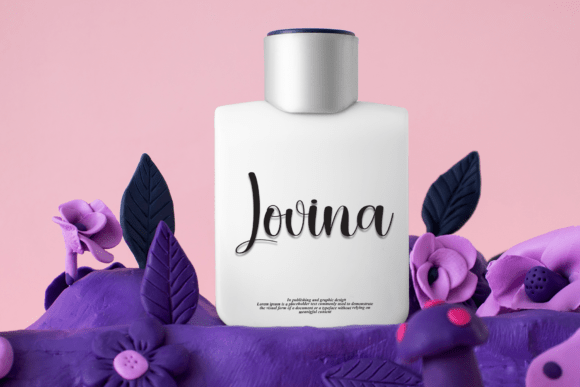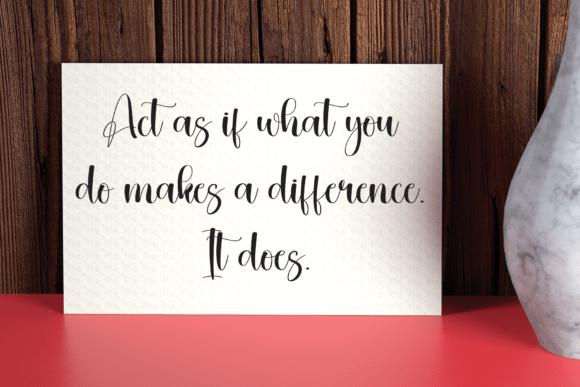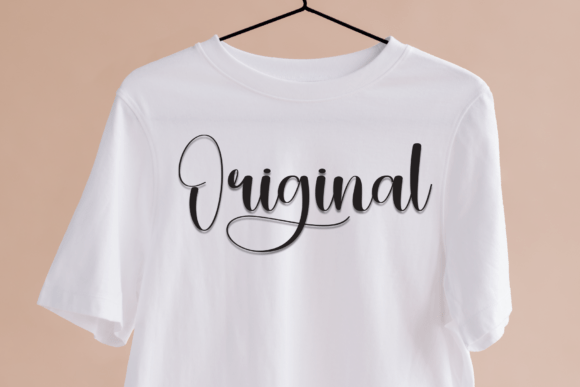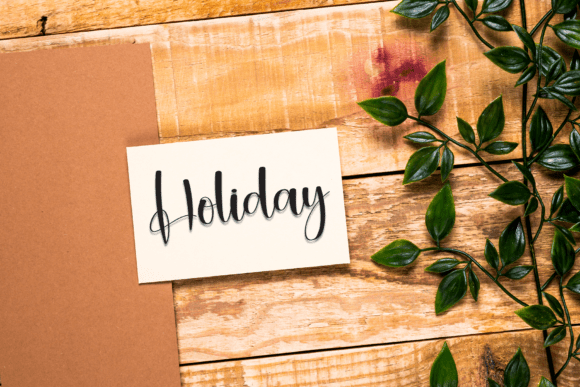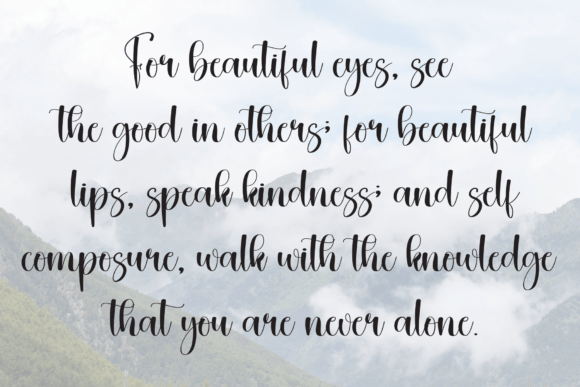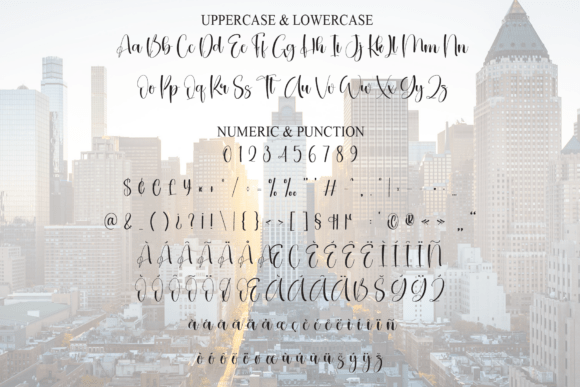
Introducing Berlyn Font: Elevate Your Designs with Elegance and Sophistication
In the world of typography, few fonts manage to capture the essence of elegance and expressiveness as beautifully as the Berlyn Font. This stunning script font is designed to flow with an effortless beauty that can instantly elevate your designs, making them perfect for a variety of creative projects. Whether you’re working on wedding invitations, logos, branding projects, or social media graphics, Berlyn Font brings a sophisticated, handwritten feel that is sure to impress.
The Beauty of Berlyn Font
Berlyn Font is characterized by its graceful curves and smooth connections, which give it a fluid and natural appearance. This elegant script font is meticulously crafted to provide a refined and polished look, making it an excellent choice for designers and crafters who aim to add a touch of sophistication to their work. The beauty of Berlyn Font lies in its ability to convey a sense of luxury and refinement, making it perfect for projects that require a high level of elegance.
One of the standout features of Berlyn Font is its versatility. This font is not just limited to wedding invitations or romantic designs; it can also be used in a variety of other projects that require a refined and sophisticated look. From logos and branding projects to social media graphics and more, Berlyn Font can adapt to any design style, making it a valuable addition to your font collection.
Timeless Charm
Berlyn Font brings a timeless charm to any design, making it a great choice for projects that require a classic and sophisticated look. Unlike trendy fonts that may quickly go out of style, Berlyn Font’s elegant and refined appearance ensures that your designs will remain stylish and relevant for years to come. This timeless quality makes Berlyn Font an excellent investment for designers and crafters who want to create beautiful and enduring designs.
Berlyn Font is an excellent choice for designers and crafters who want to add a touch of elegance and sophistication to their work. With its beautiful script and refined appearance, this font is perfect for a variety of creative projects, including:
- Logos and branding projects
Why Choose Berlyn Font?
There are many reasons why Berlyn Font stands out from other script fonts. Here are a few key benefits:
- Elegant and expressive: Berlyn Font features a beautiful script that is both elegant and expressive, making it perfect for designs that require a touch of sophistication.
- Versatile: This font can be used in a variety of projects, from wedding invitations to logos and branding projects.
- Timeless charm: Berlyn Font brings a timeless charm to any design, ensuring that your work will remain stylish and relevant for years to come.
- High-quality design: Berlyn Font is meticulously crafted to provide a refined and polished look, making it an excellent choice for designers and crafters who demand the best.
In conclusion, Berlyn Font is an exceptional script font that can elevate your designs with its effortless beauty and elegance. With its graceful curves, smooth connections, and refined appearance, this font is perfect for a variety of creative projects. Whether you’re a designer or crafter looking to add a touch of sophistication to your work, Berlyn Font is an excellent choice. Its versatility, timeless charm, and high-quality design make it a valuable addition to any font collection.